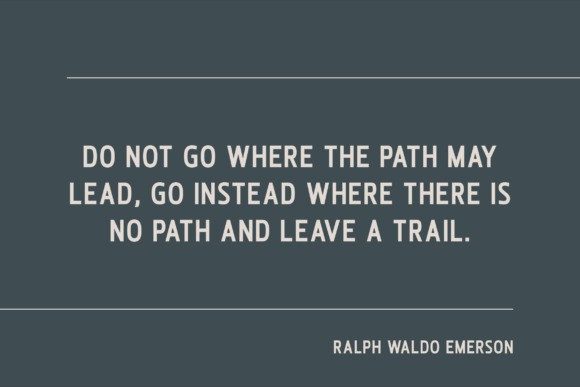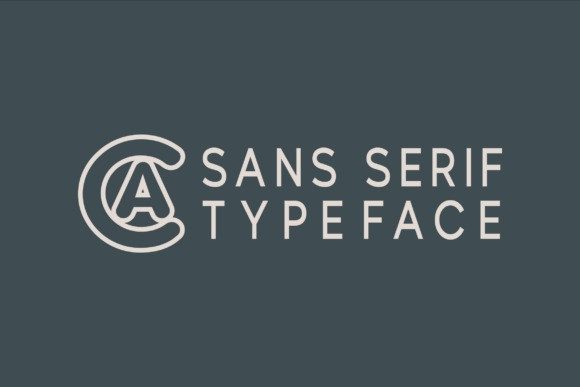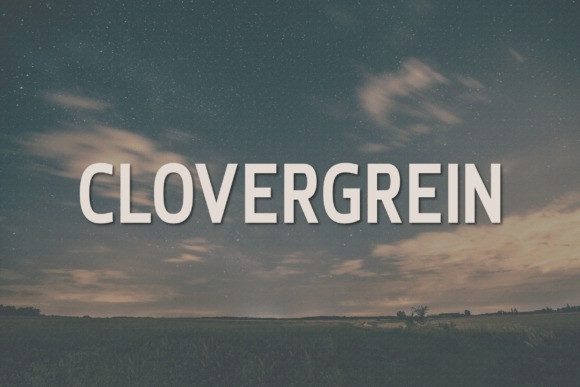
Clovergrein Font
Clovergrein Font a modern, classy sans serif typeface. A sans serif typeface that contains upper characters, number 0-9 and a range of punctuation and symbols. An extremely versatile font, perfect for logos, weddings, invitations, quotes, advertisements, print, magazines, and more!